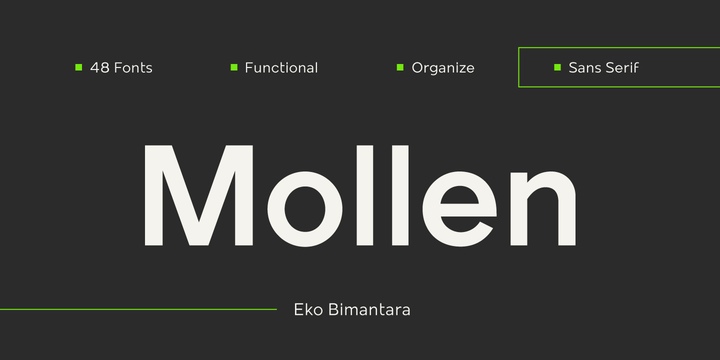
Mollen Font
This versatile typeface is perfect for luxury branding, elegant invitations, fashion magazines, cosmetic packaging, wedding stationery, restaurant menus, boutique signage, premium product labels, and sophisticated editorial design.
What makes this font exciting is its refined elegance and soft curves that create a warm, approachable feeling while maintaining premium quality aesthetics, offering designers the perfect balance between sophistication and accessibility.
The Mollen font family includes light, regular, medium, bold, and script variations, providing elegant solutions for complete brand identity systems.
Whether you're designing upscale retail experiences or crafting intimate personal projects, Mollen Font Free Download brings exceptional charm and readability to every application. This graceful typeface combines classic typography principles with contemporary design sensibilities, creating letterforms that feel both timeless and fresh. The font's gentle curves and balanced proportions make it ideal for brands seeking to convey warmth and reliability.
Mollen Font features carefully crafted details that enhance its personality without compromising functionality. The subtle character variations create natural rhythm in text blocks, while the consistent stroke weights ensure excellent performance across different sizes and applications. Each letterform demonstrates meticulous attention to spacing and optical balance.
Professional designers appreciate Mollen Font's ability to convey trustworthiness and approachability simultaneously. Its organic qualities make it particularly effective for lifestyle brands, wellness companies, and artisanal products. The font's versatile nature allows it to work beautifully in both traditional and modern design contexts, adapting seamlessly to various brand personalities.
The complete Mollen Font package includes extensive character sets with multilingual support and professional typography features. Advanced OpenType capabilities provide designers with additional control over text appearance, including ligatures and contextual alternatives. This comprehensive approach ensures consistent quality whether you're creating print materials, digital interfaces, or environmental applications.